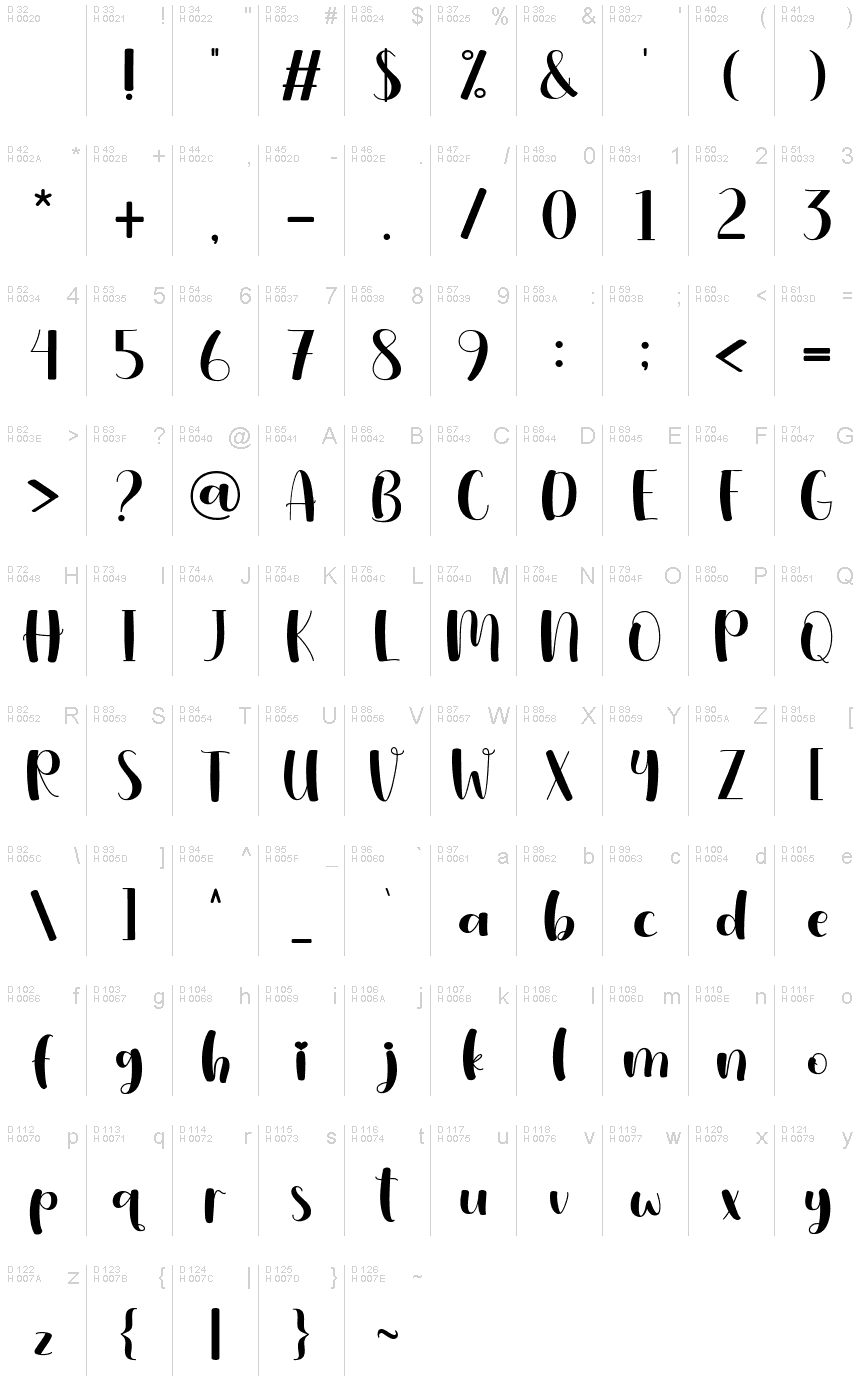
Valeniya, designed by Endri Sulistyawan, is a trendy and stylish handwritten font. With its semi-bold weight, this font adds a touch of elegance to any project.
Valeniya is perfect for creating stunning designs such as wedding invitations, posters, decorations, and greetings cards. Its ravishing style will captivate your audience and make your designs truly stand out. Whether you're planning a romantic wedding or want to create eye-catching promotional materials, Valeniya will bring sophistication and charm to your projects.
Let this beautiful script font inspire your creativity and enhance the visual appeal of your designs.